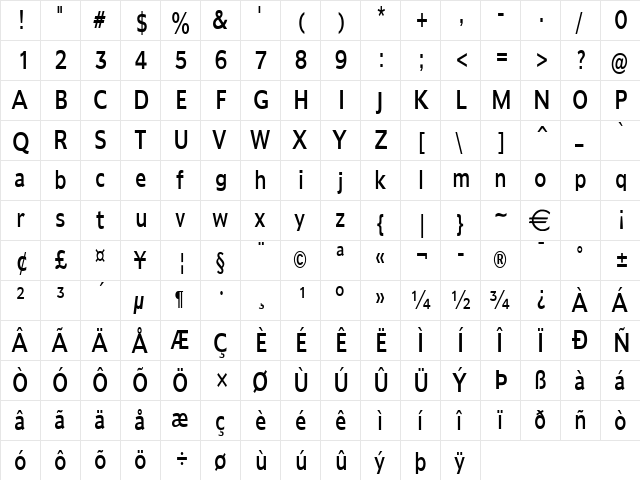
AdamsThin Normal Font Preview
AdamsThin Normal
Design Context for AdamsThin Typeface
AdamsThin takes a measured approach to typography — its balanced proportions and neutral character make it a reliable workhorse for both digital and print work. The delicate stroke weight brings airiness and refinement to layouts.